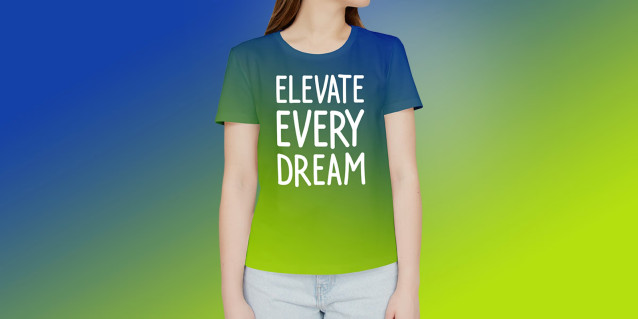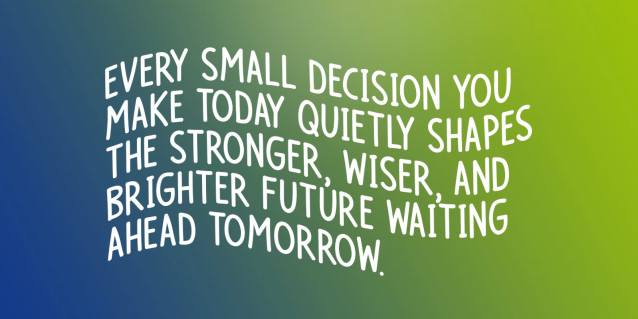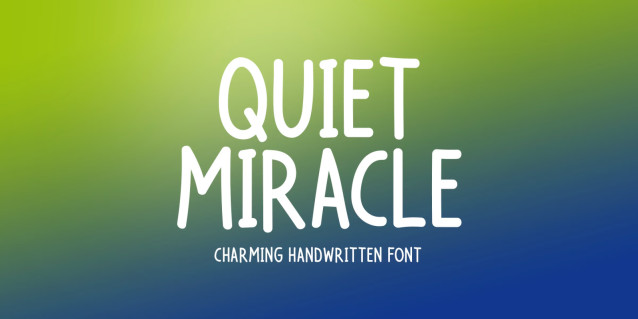
Quiet Miracle Font
Quiet Miracle is a charming handwritten font with a clean, natural stroke and an effortlessly elegant personality. Its regular-weight style creates an authentic handwritten feel, making every design look warm, personal, and inviting. Perfect for branding, invitations, packaging, quotes, social media, journals, logos, and creative projects that deserve timeless simplicity.